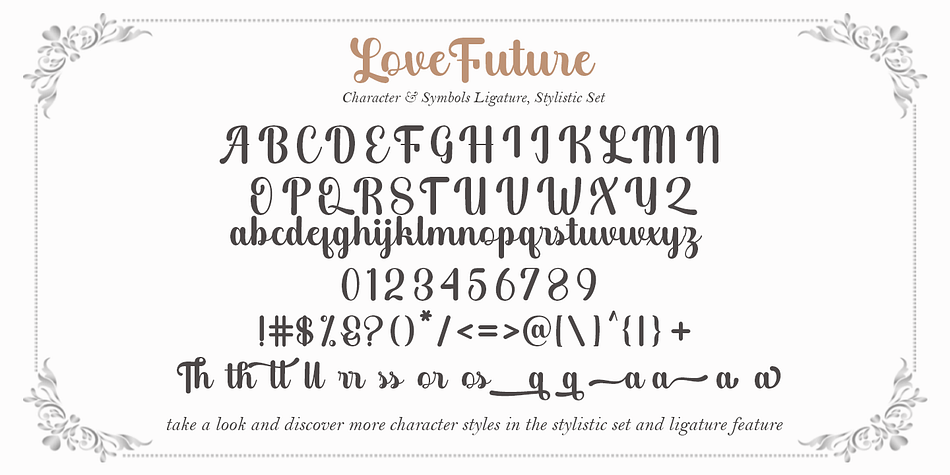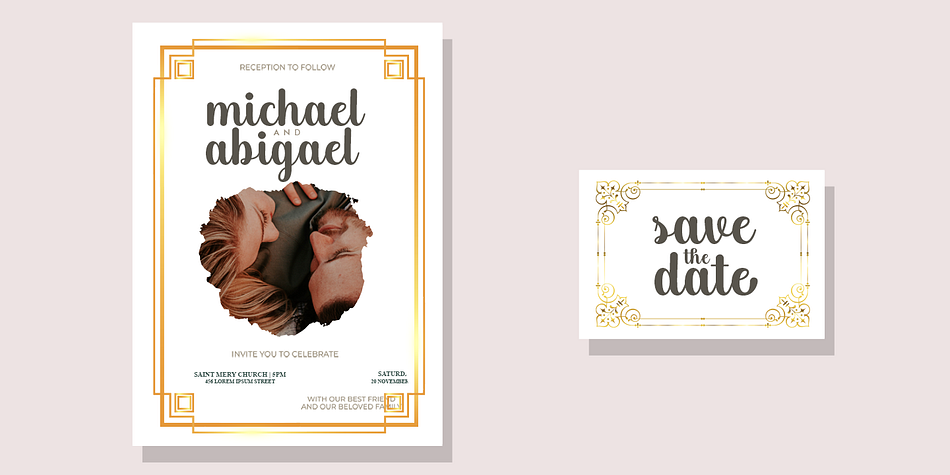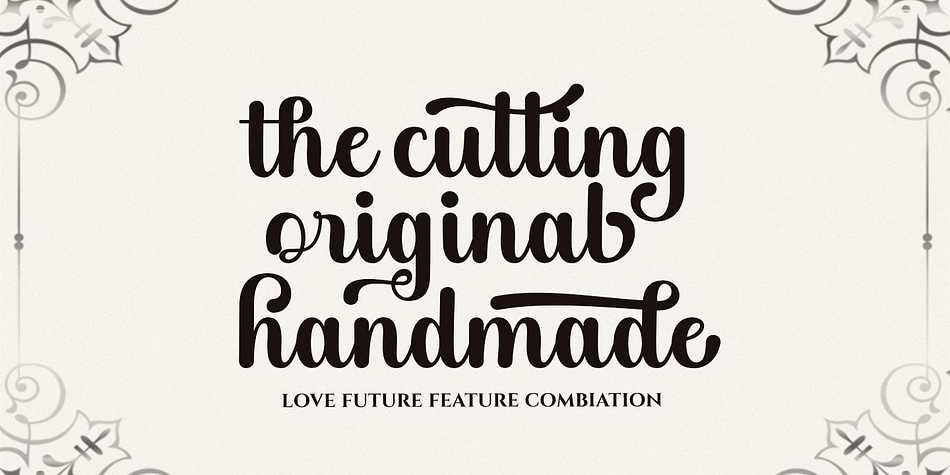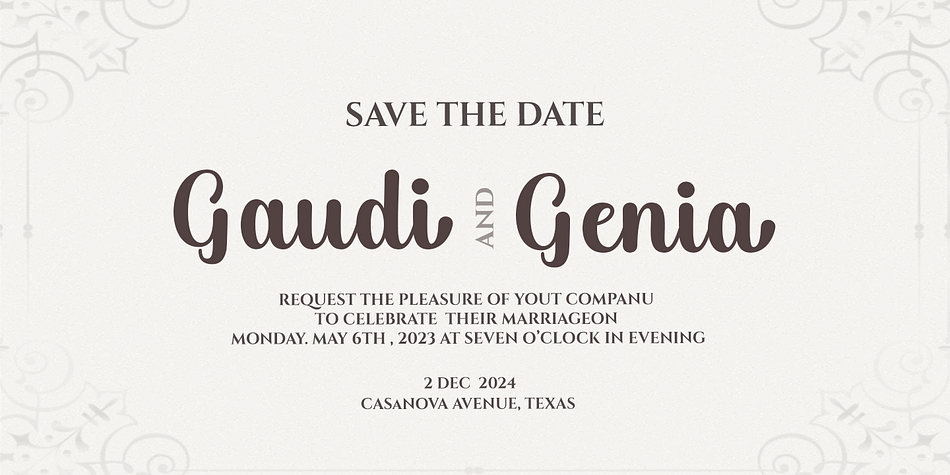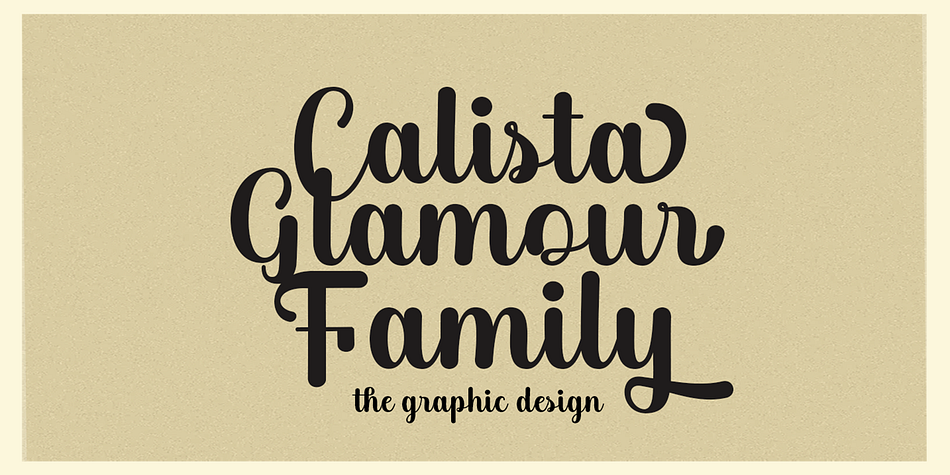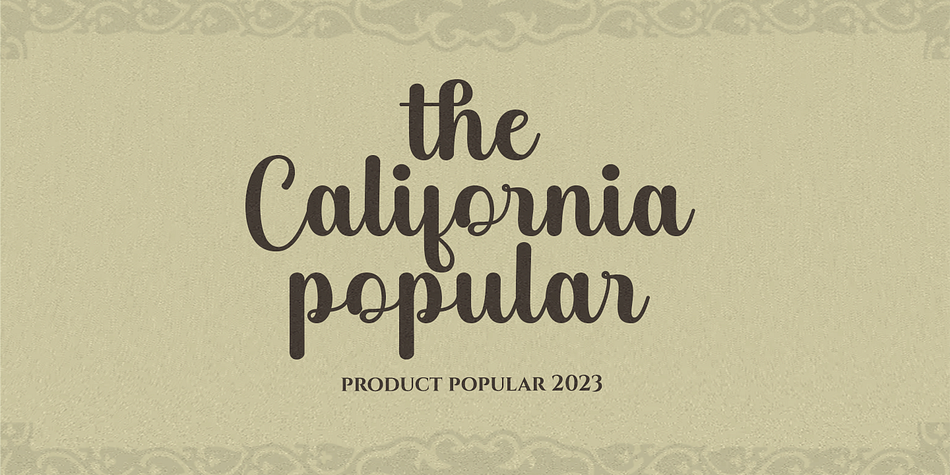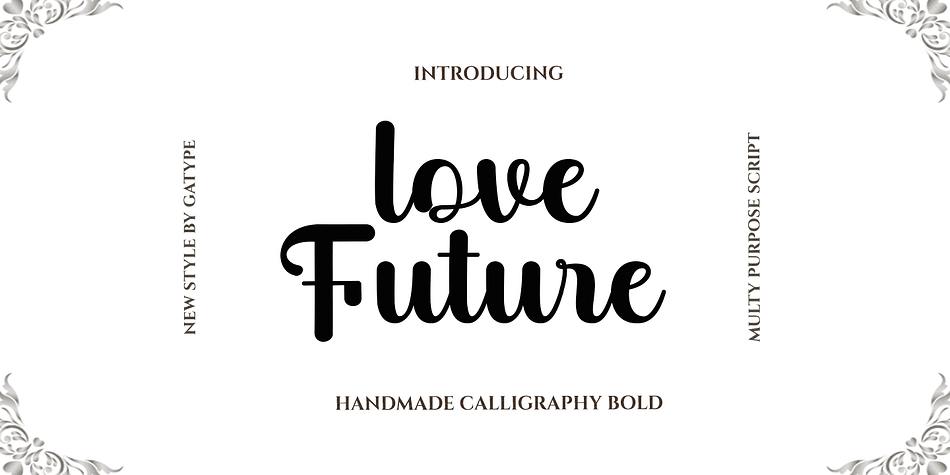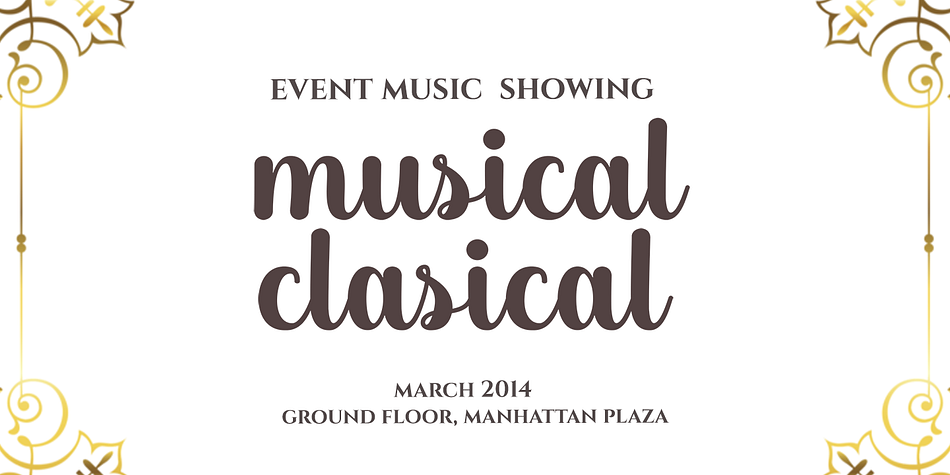
Love Future
Love Future is a brush script font family published by Gatype.
Love Future is a bold style script font. elegant, simple and slightly vintage look. This font is equipped with open types such as: ligature, Stylistic Sets, Last alternative. In addition, this font also supports multiple languages.
You can mix and match your best combination. And besides that, this font is suitable for your design needs such as: poster design, magazines, logos, branding, packaging and many more